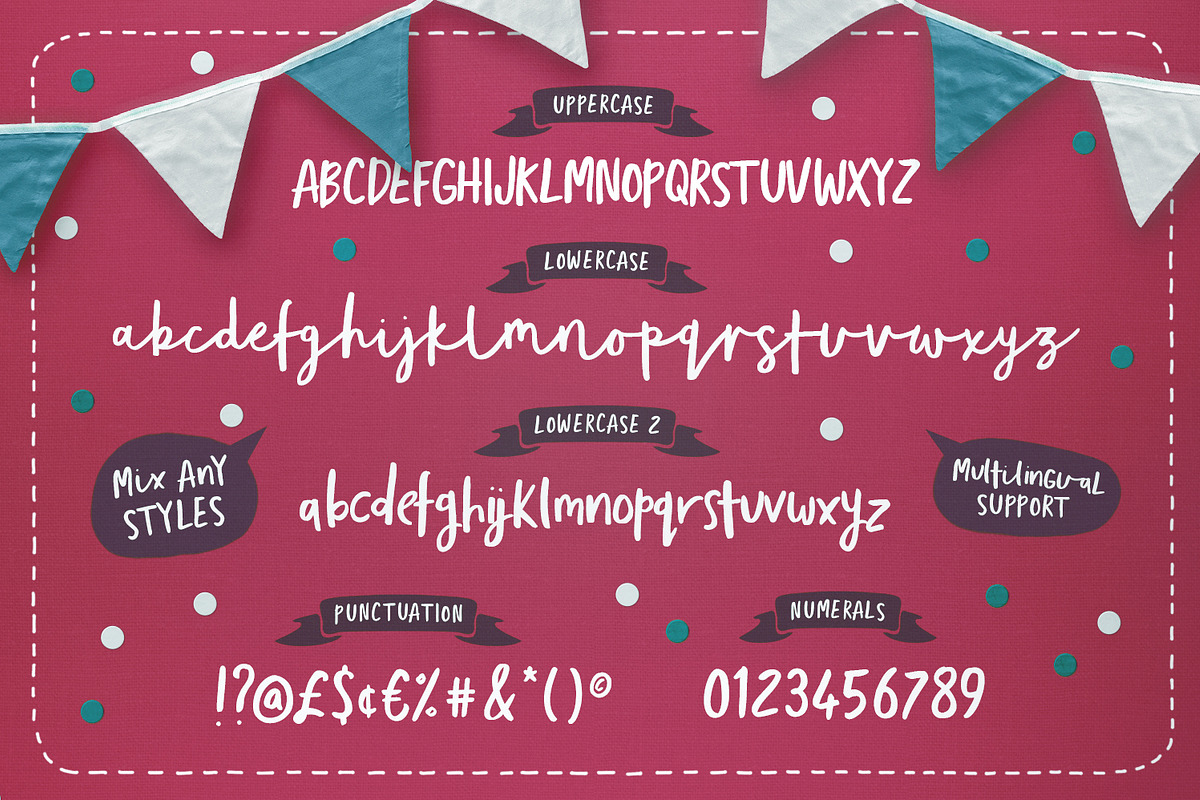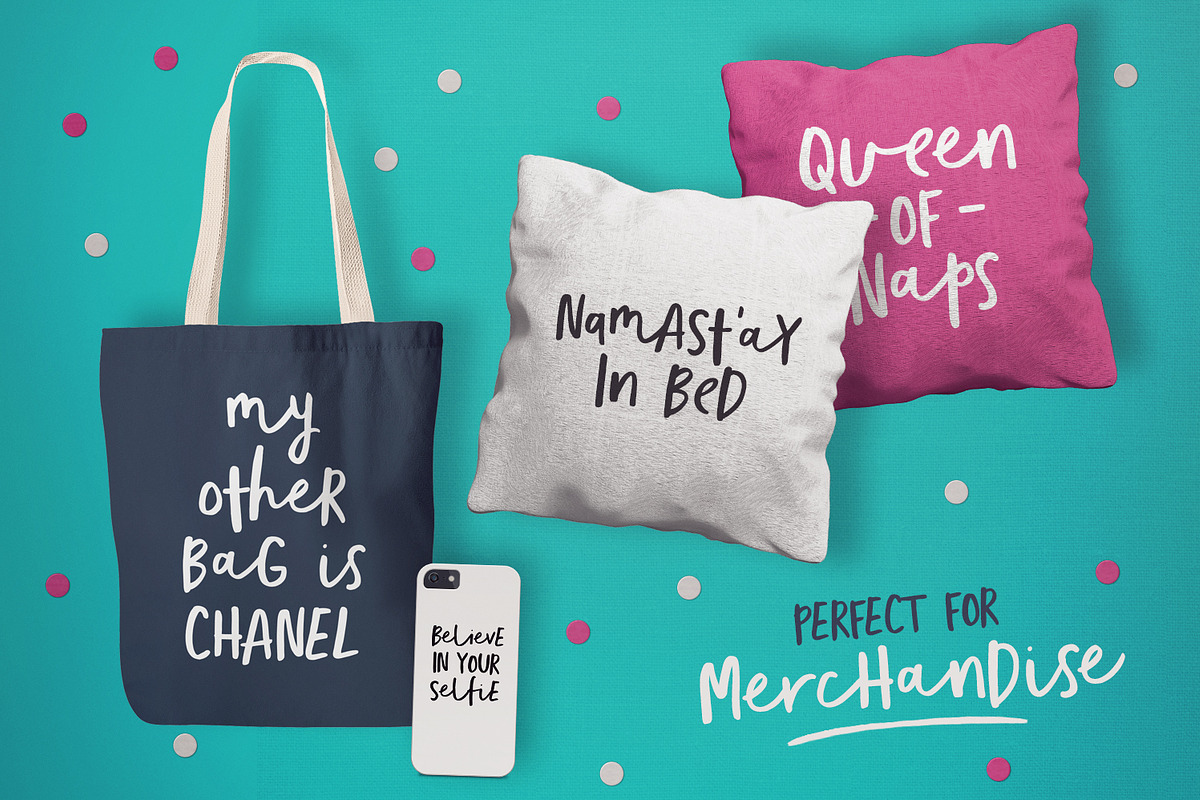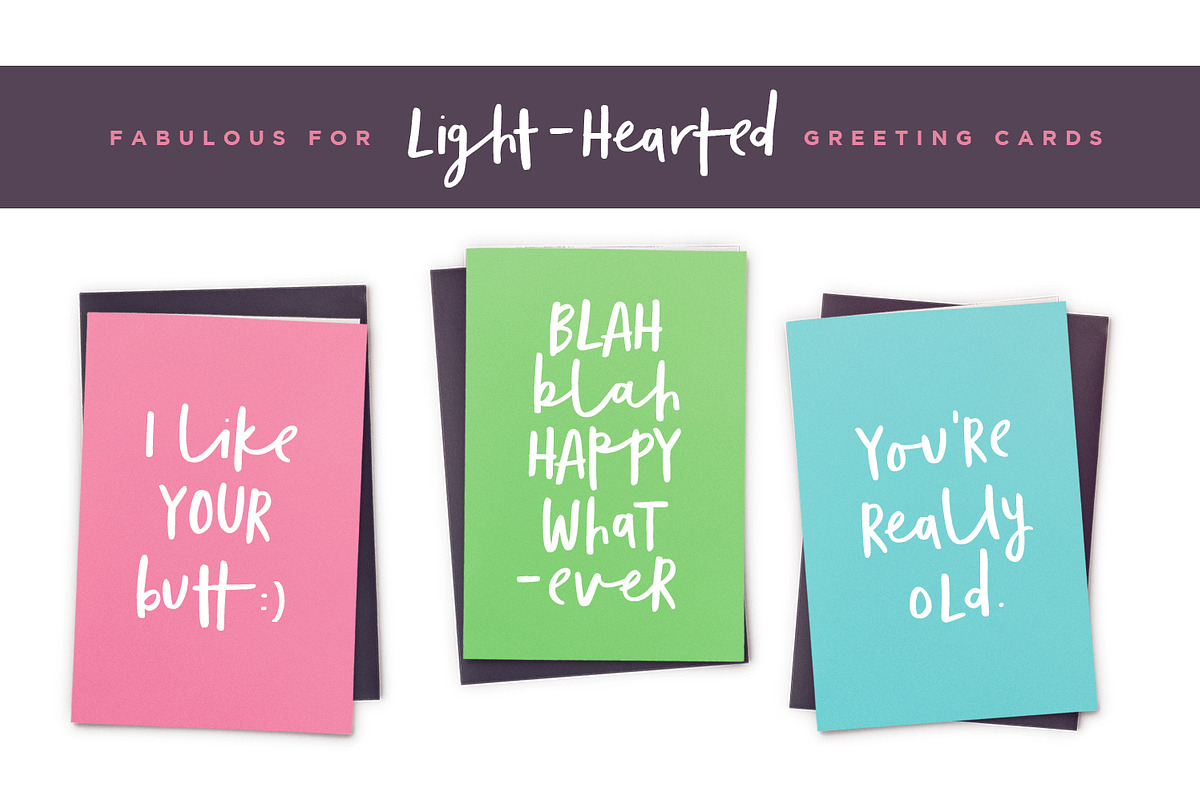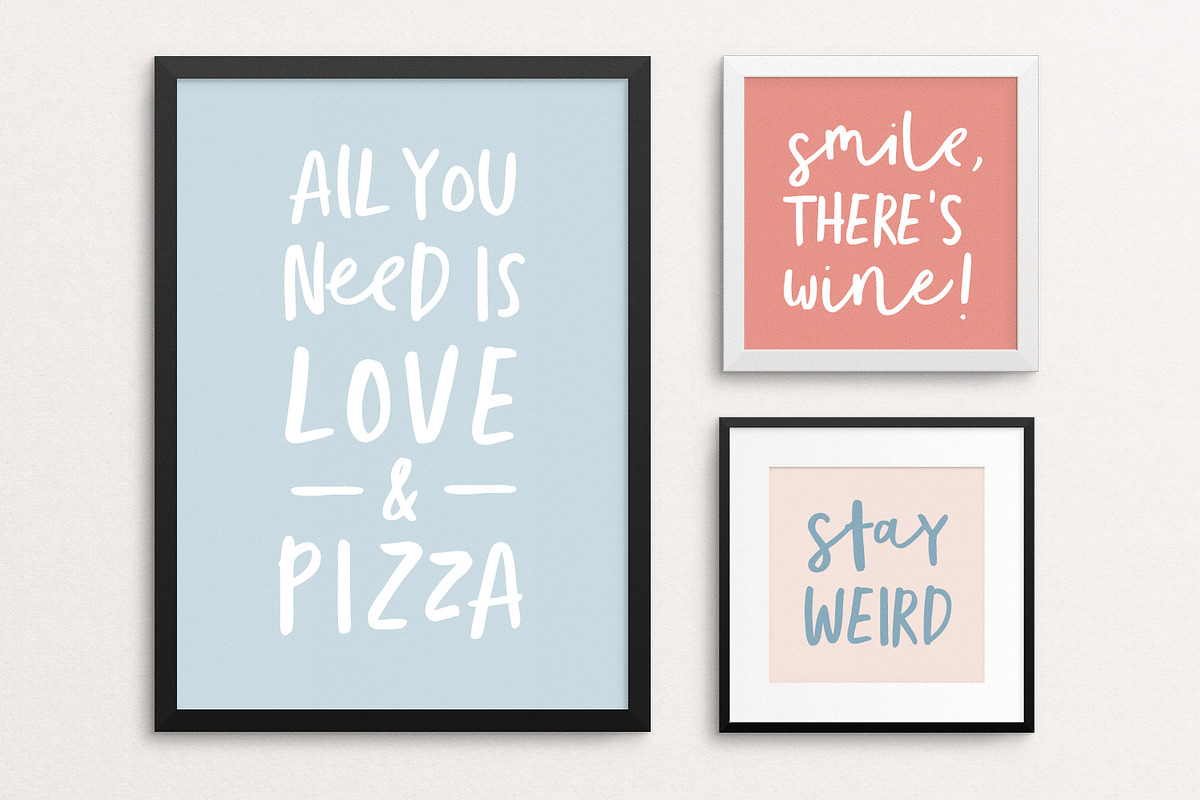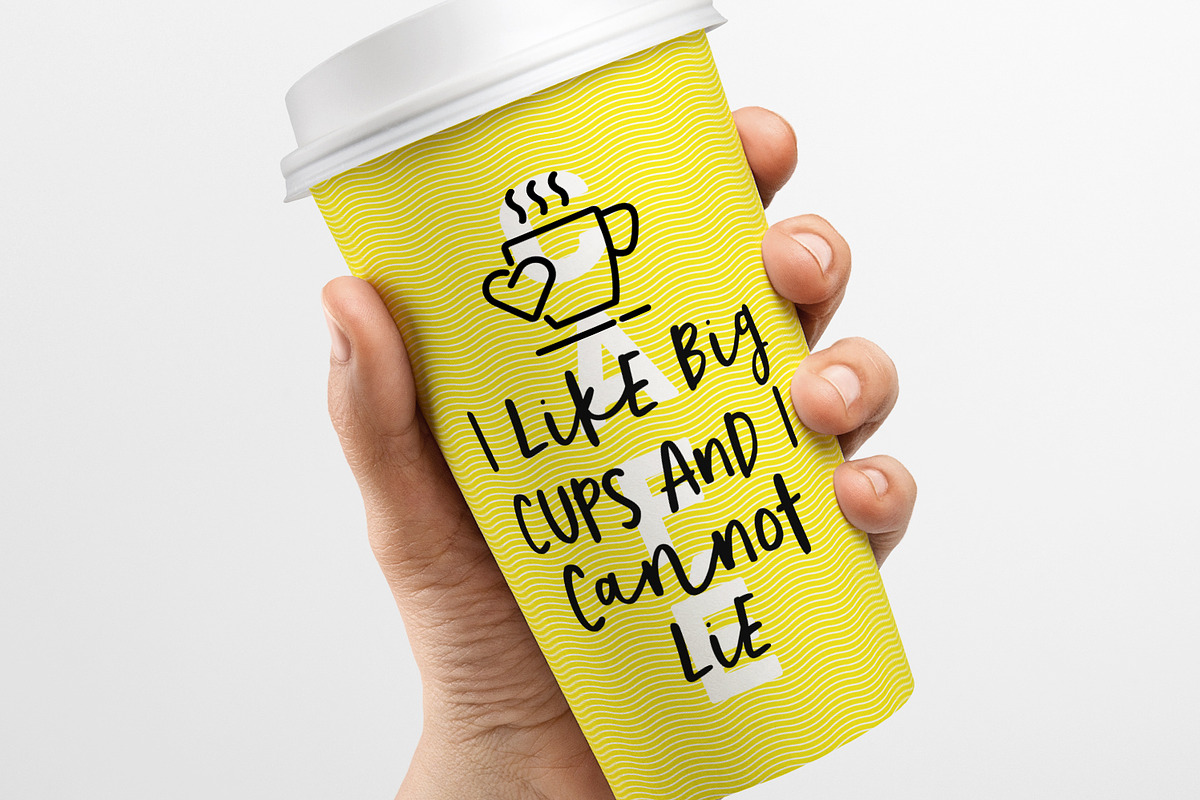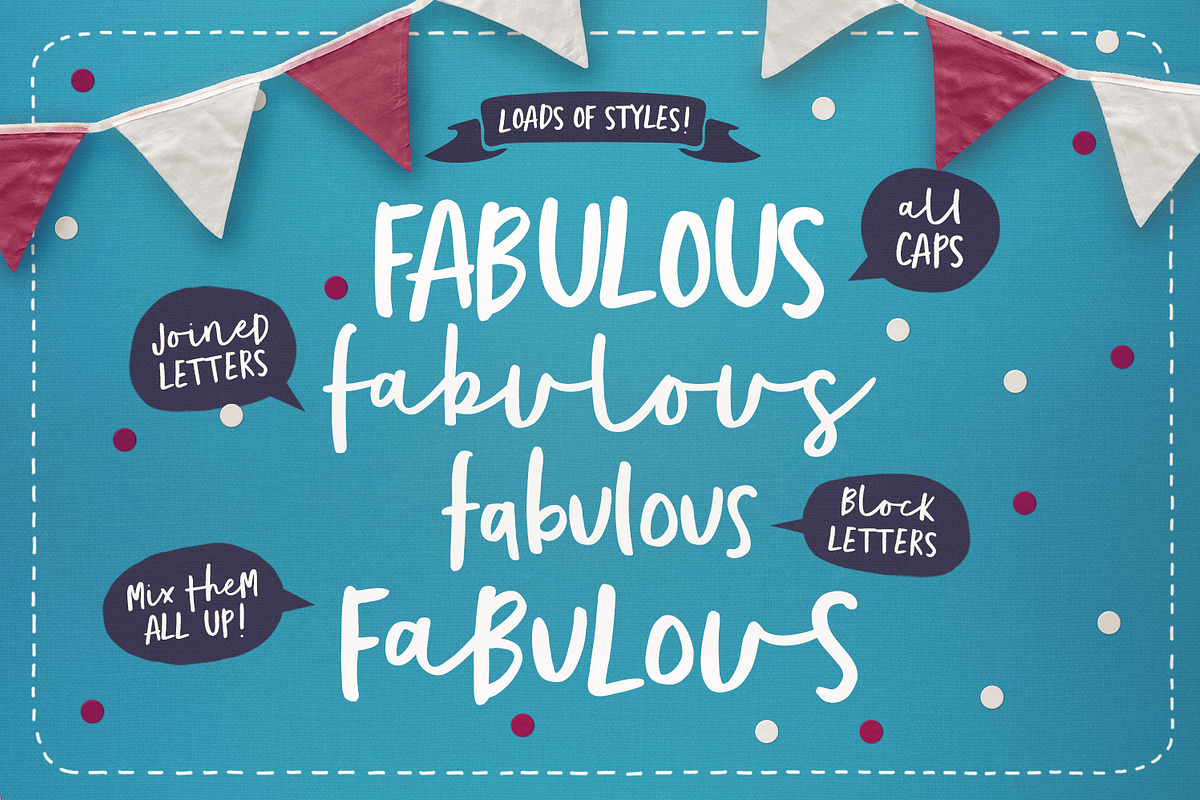
Totally Terrific Typeface
Totally Terrific Typeface by Sam Parrett is a font selected for branding, posters, packaging, typography.
- Your download will contain 2 font files; Totally Terrific Typeface • Contains a full set of connected lowercase letters, uppercase letters,
- The lowercase characters can be connected or un-connected, and will work in any combination of these two versions.
- Not only does it also look great in all-caps, but the uppercase letters will fit in with the lowercase at any location - I'm serious!
- Totally Terrific Typeface Two • A second version of the Totally Terrific Typeface, with a completely new set of un-connected lowercase chara
Totally Terrific Typeface by Sam Parrett fits naturally into Branding, posters, packaging, typography.